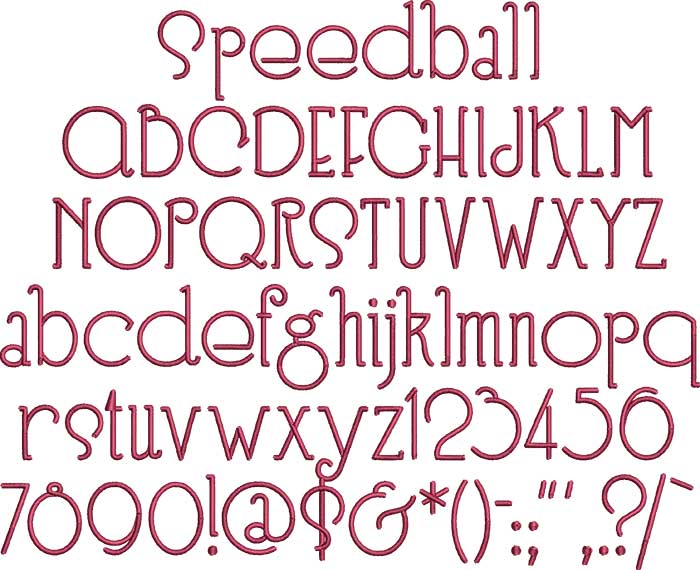
BX Embroidery Font: Speedball No3 Regular
BX Embroidery Font: Speedball No3 Regular Font Bundle (4 sizes) is a stylized serif calligraphy machine embroidery font that includes A-Z, a-z, 0-9 and punctuation; 4 sizes.
BX Embroidery Font: Speedball No3 Regular is a stylized serif calligraphy machine embroidery font that includes A-Z, a-z, 0-9 and the following punctuation: !@$&*()-:;”‘,.?/` (80 total characters).